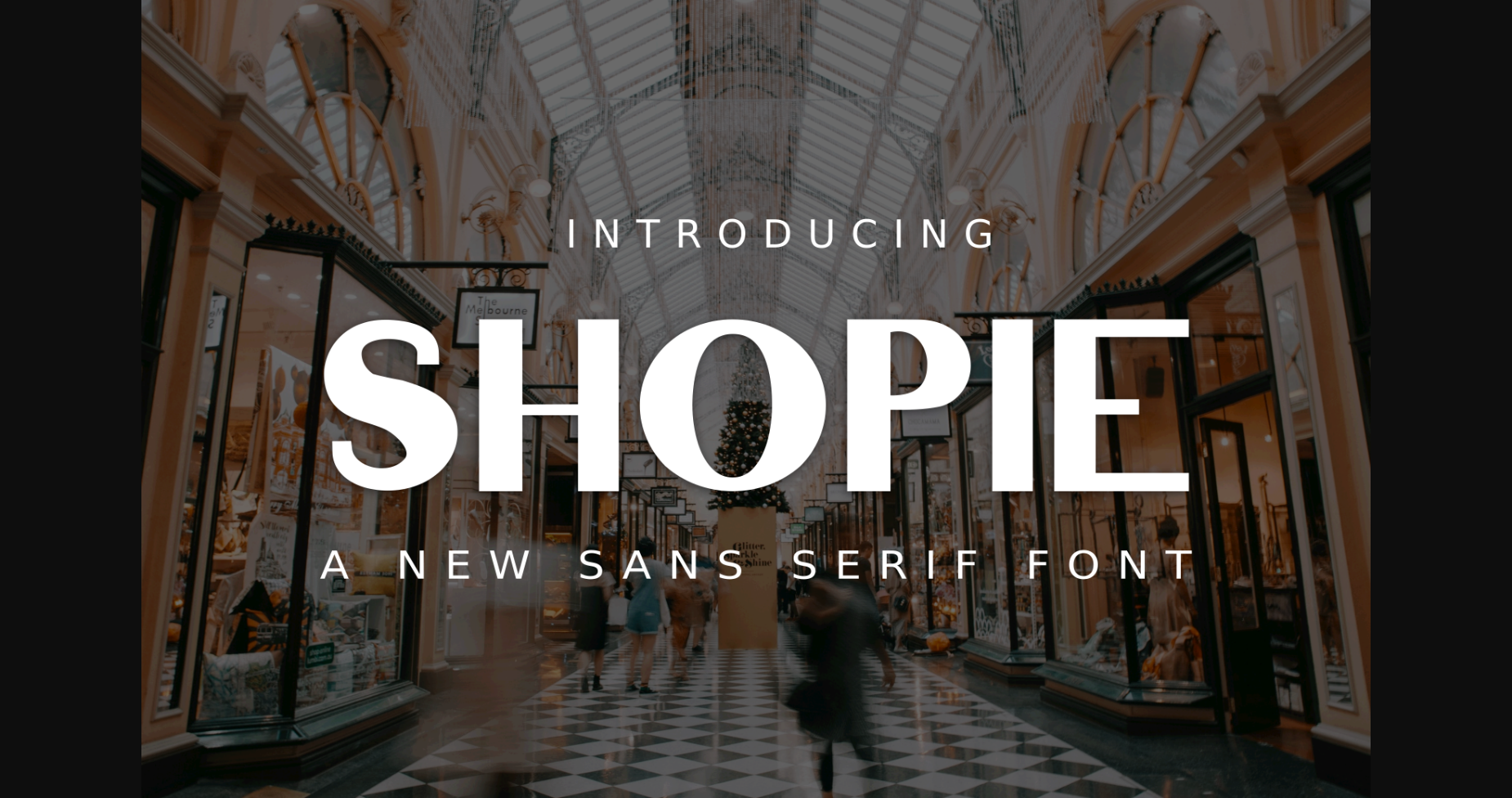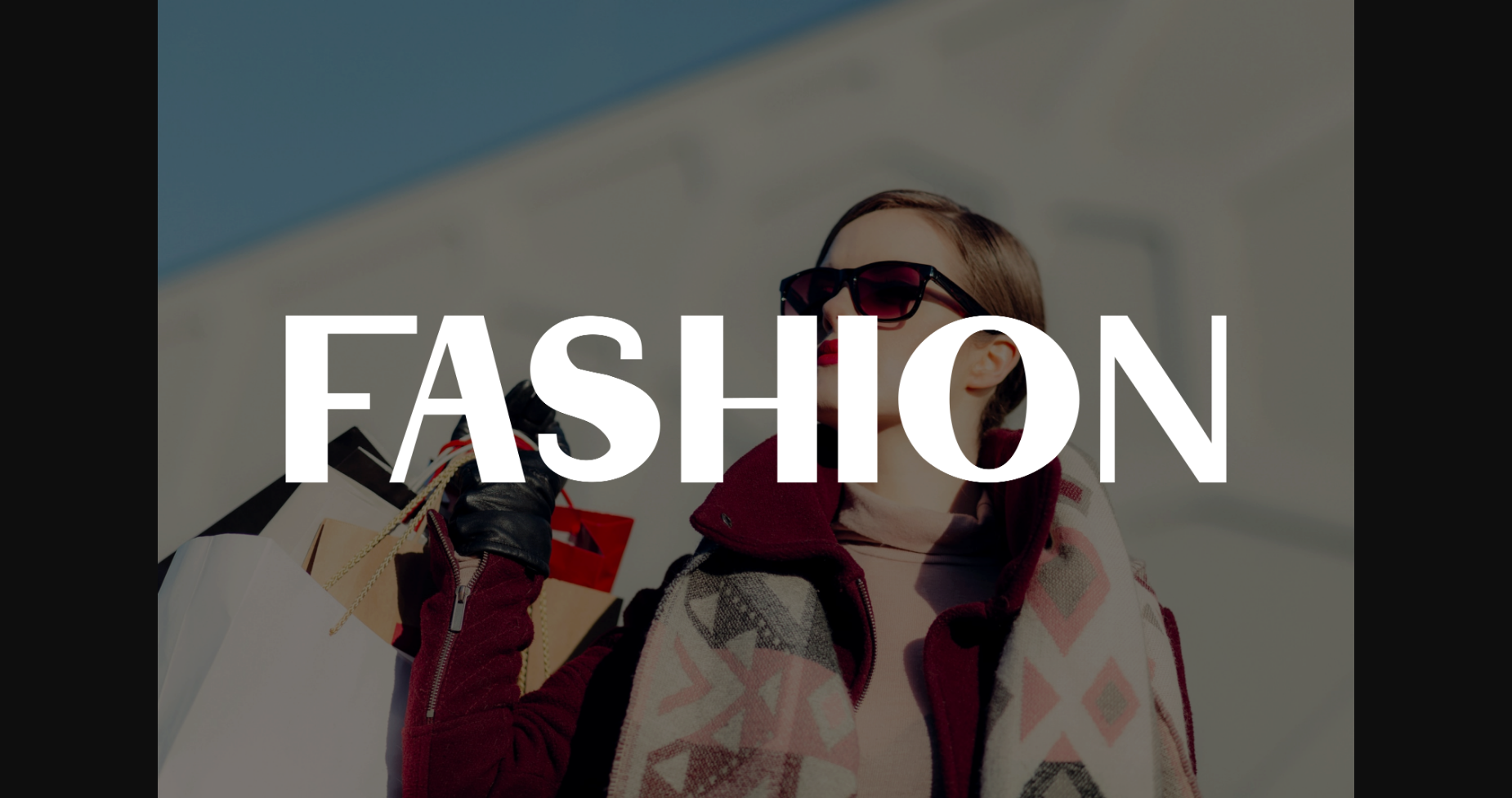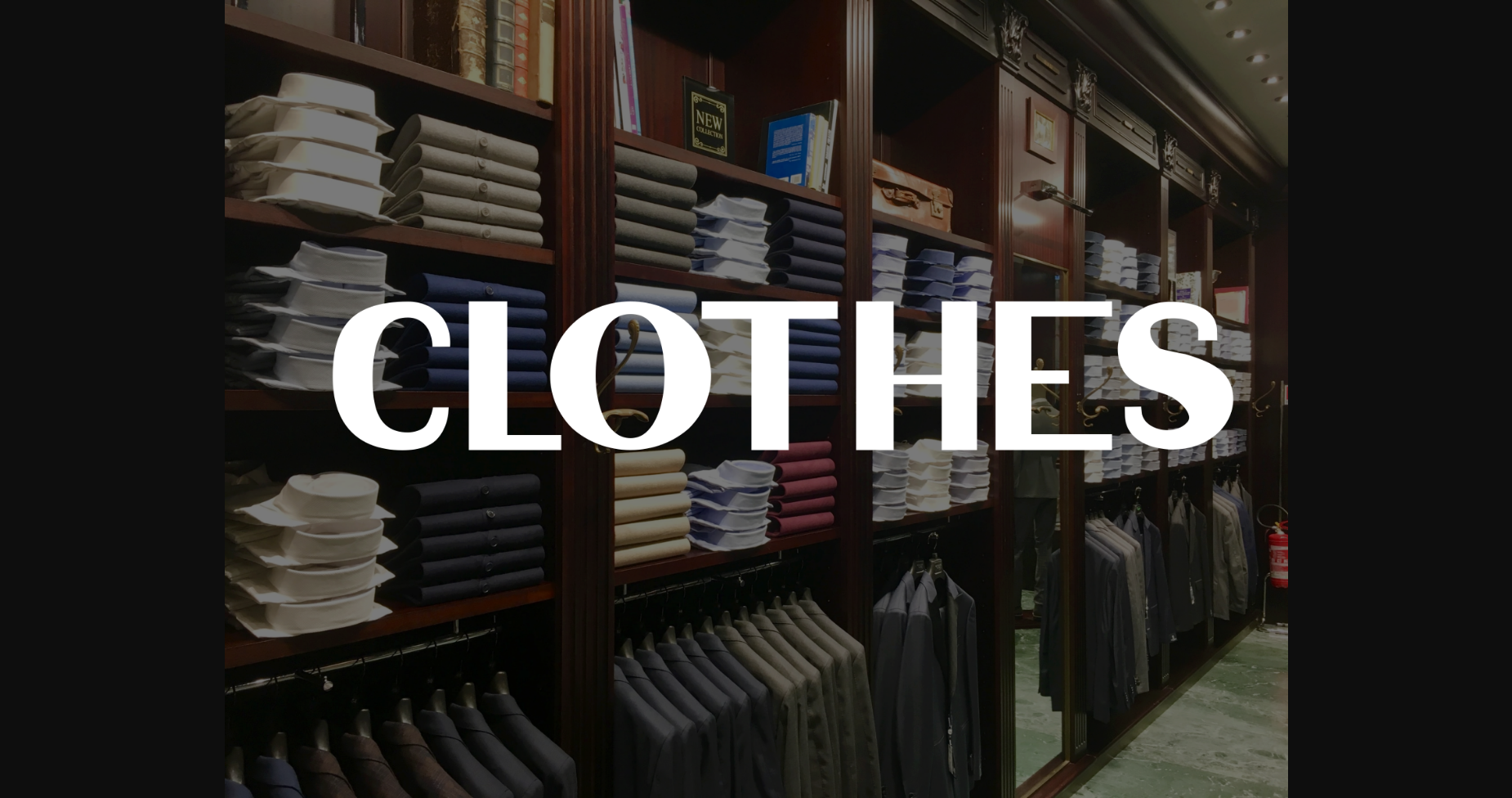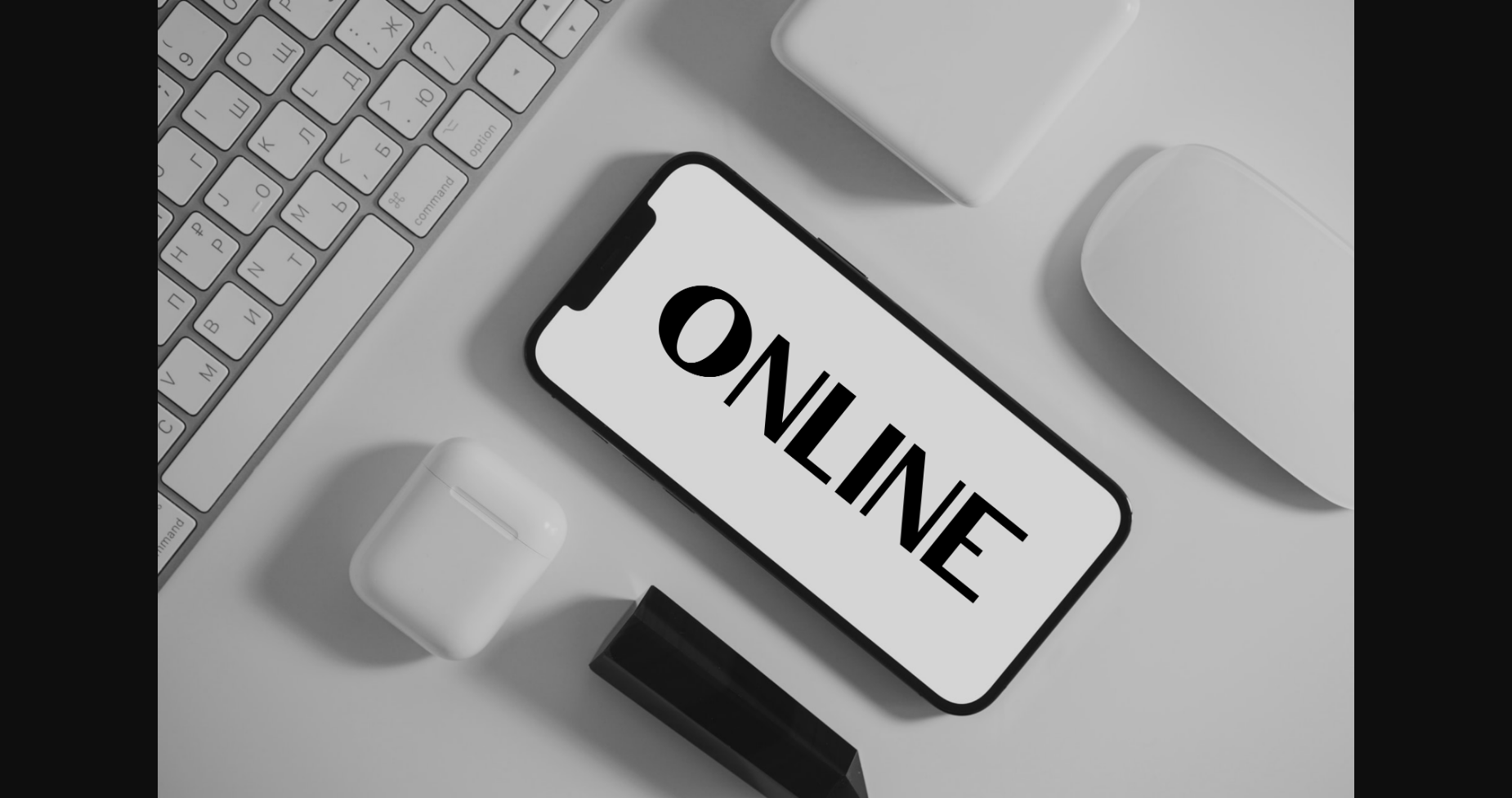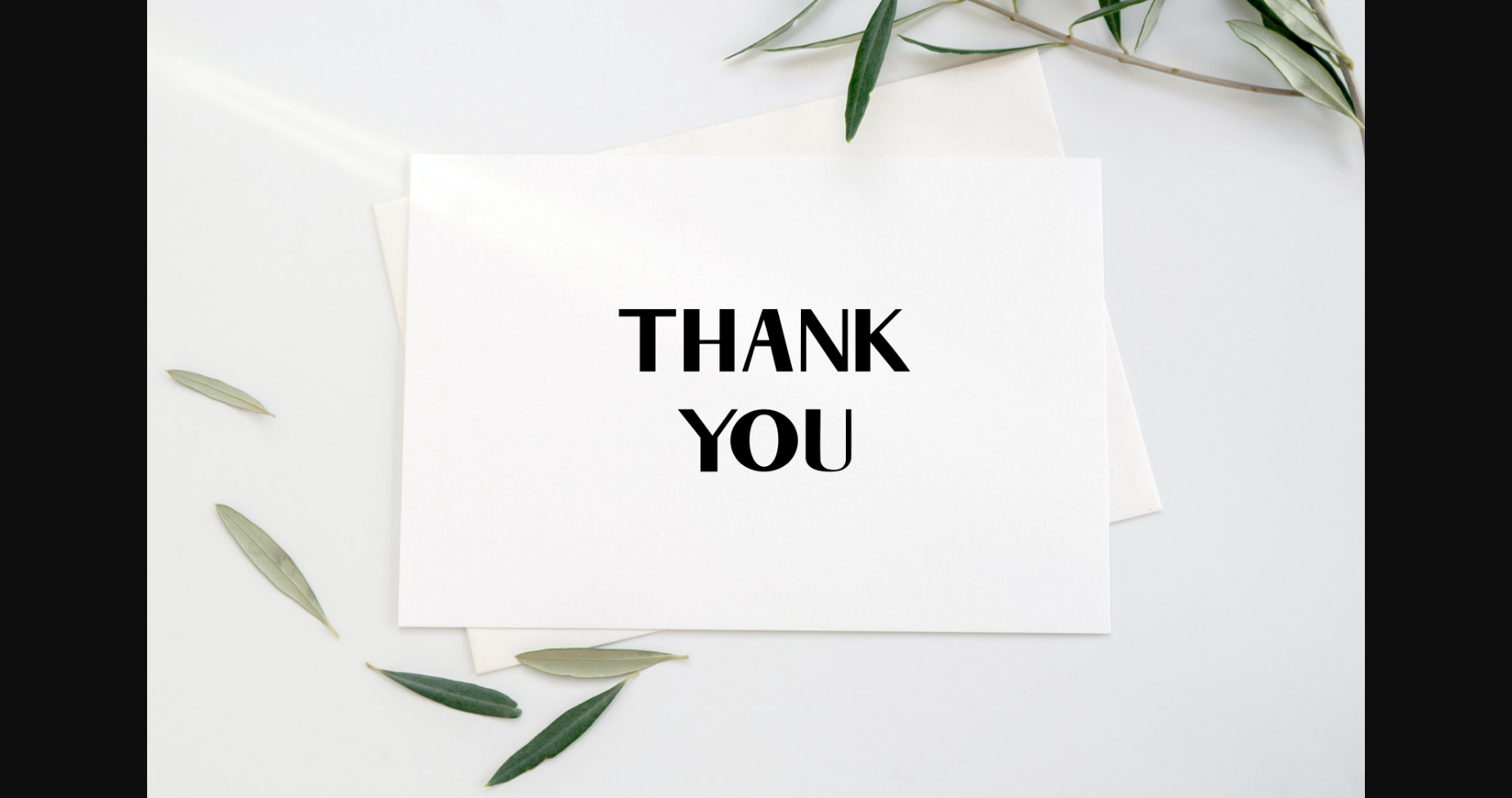
About Shopie Font
Shopie is an elegant and assertive sans serif font. Suitable to a wide variety of designs due to its neat and simple style, this font has the potential to become your favorite go-to font, no matter the occasion!